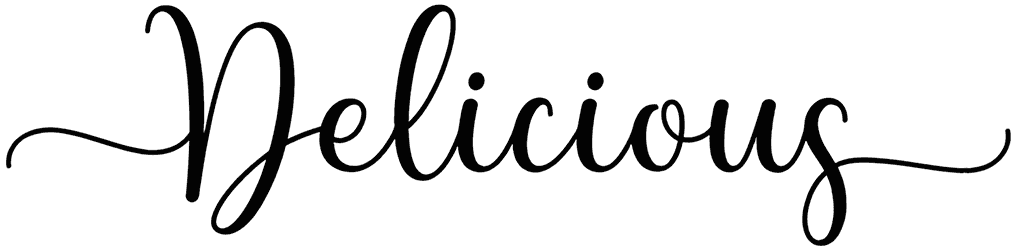
Delicious Font
Would you prefer to submit your project with an adorable and elegant look? This feminine font, called Delicious, can be what you demand, delightful and good in taste, just like its name.
For any stylish or vintage designs, such as romantic movie titles, invitations, greeting cards, or even cosmetic packages, this script can be a nice experience. Don’t mention its challenging readability; visit our rising inventory to have first dibs on all the free resources you fancy!